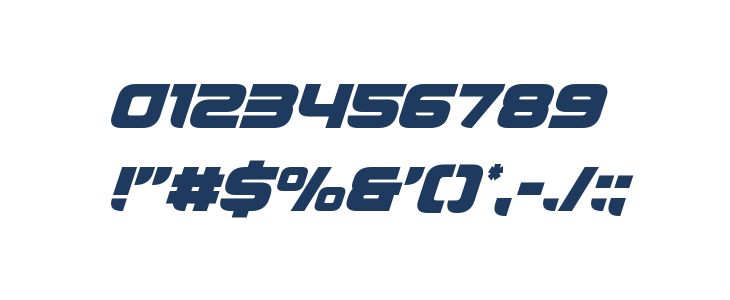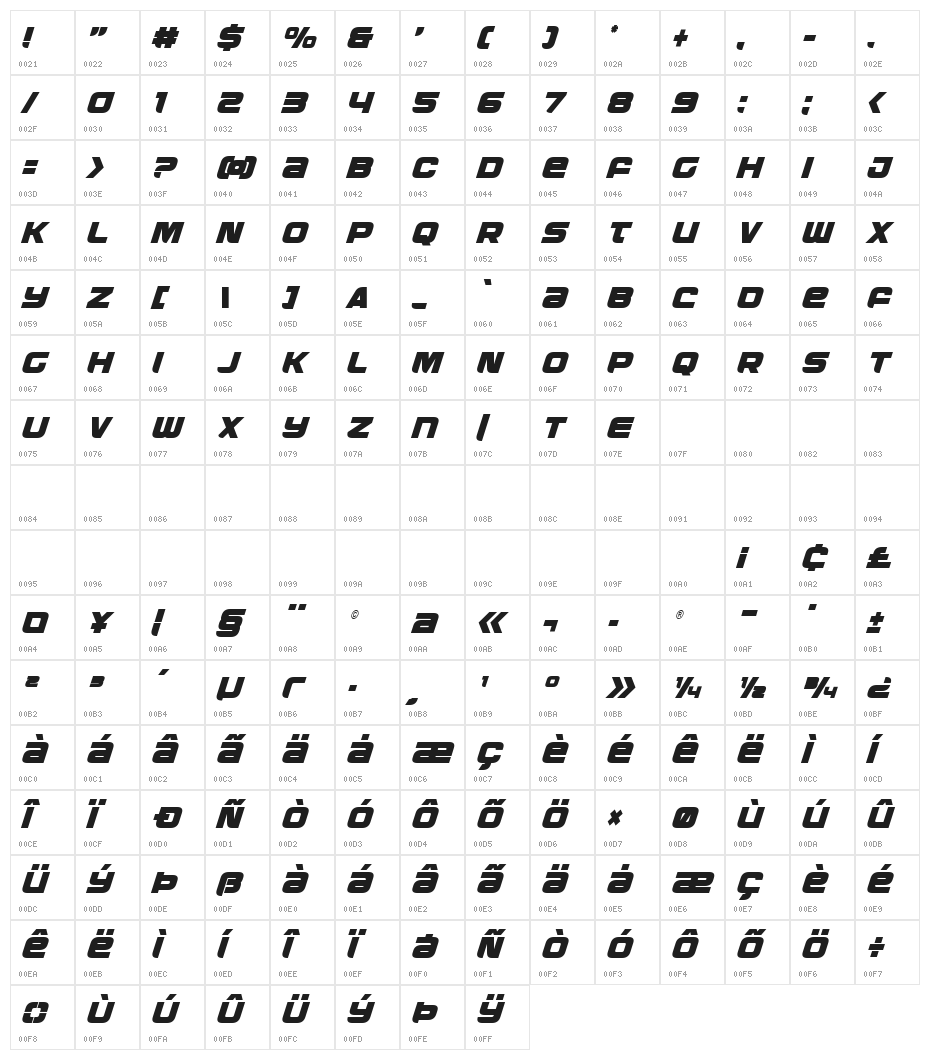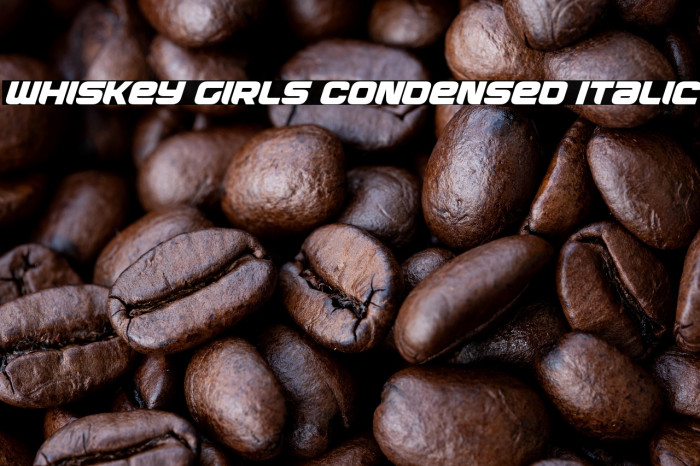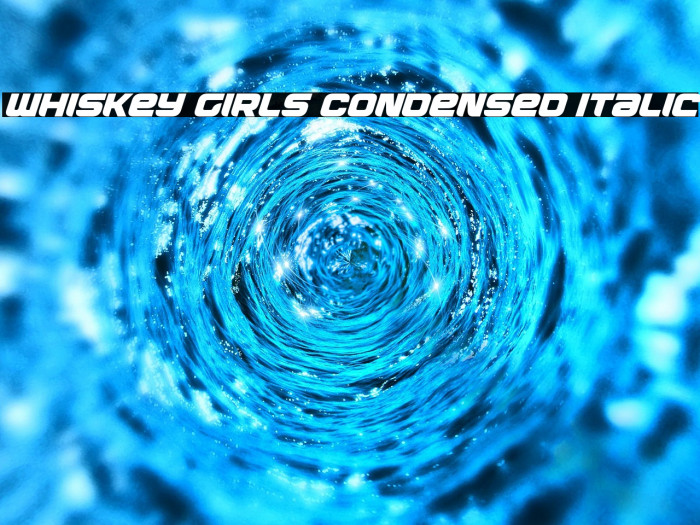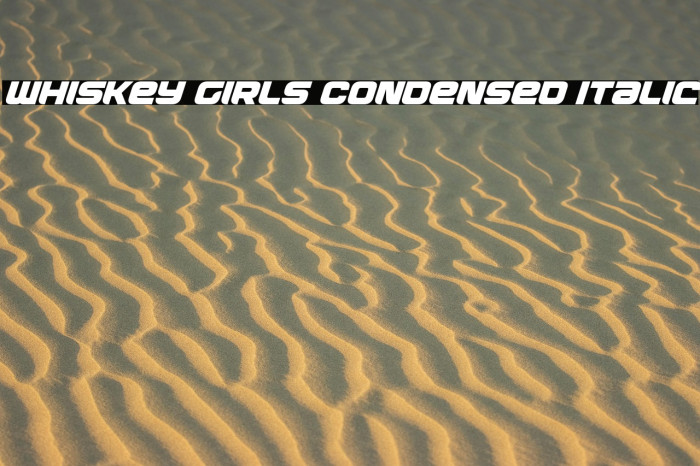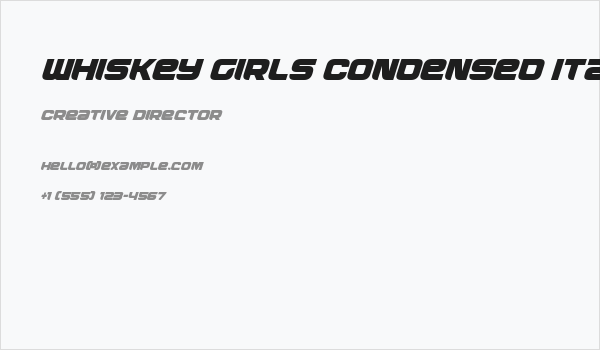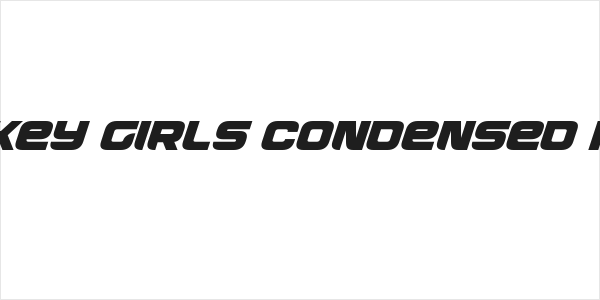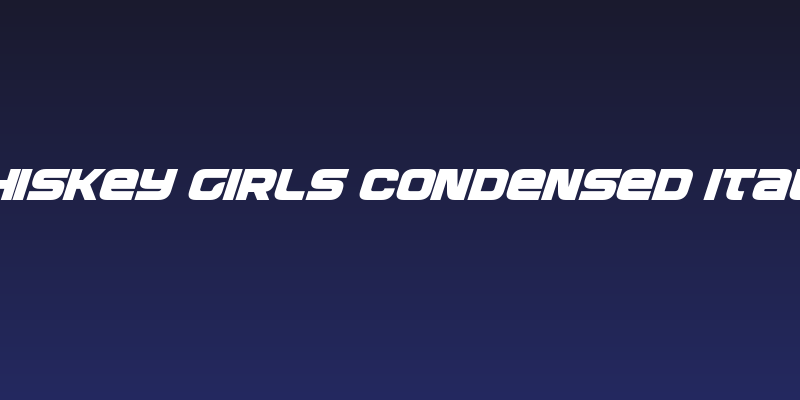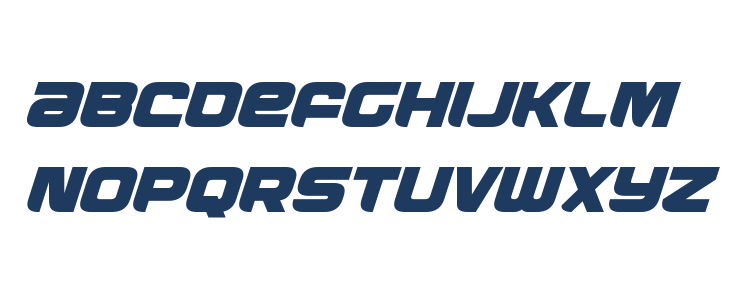
Whiskey Girls Condensed Italic Font
Whiskey Girls Condensed Italic Description
This font features a bold and dynamic style with a condensed and italicized form. The characters are designed with a forward-leaning slant, giving a sense of motion and urgency. The strokes are thick and consistent, providing a strong visual impact. The overall design is sleek and modern, with a touch of retro flair. The uppercase and lowercase letters maintain a uniform width, enhancing readability while preserving the condensed nature. Numbers and special characters are crafted to match the boldness and style of the alphabet, ensuring a cohesive look across all elements.
| Proposed Projects | Ideal for sports branding, dynamic posters, modern advertising, and eye-catching headlines. |